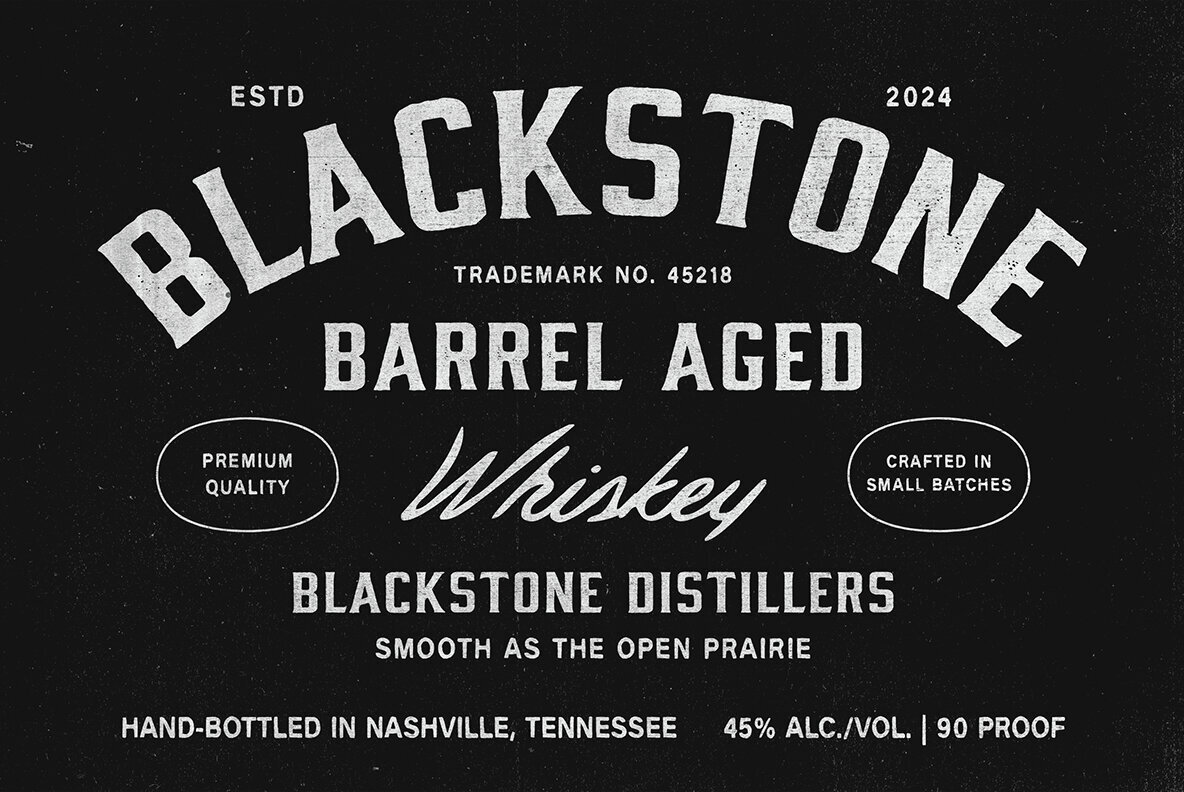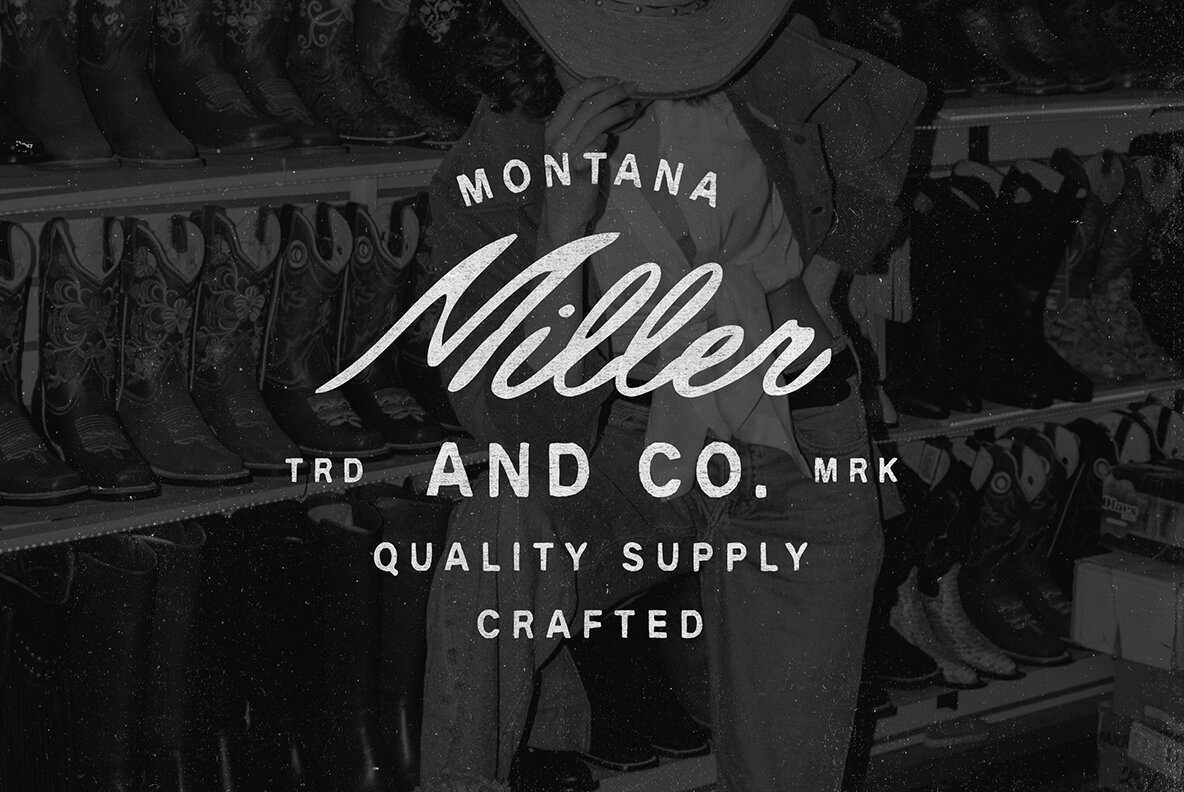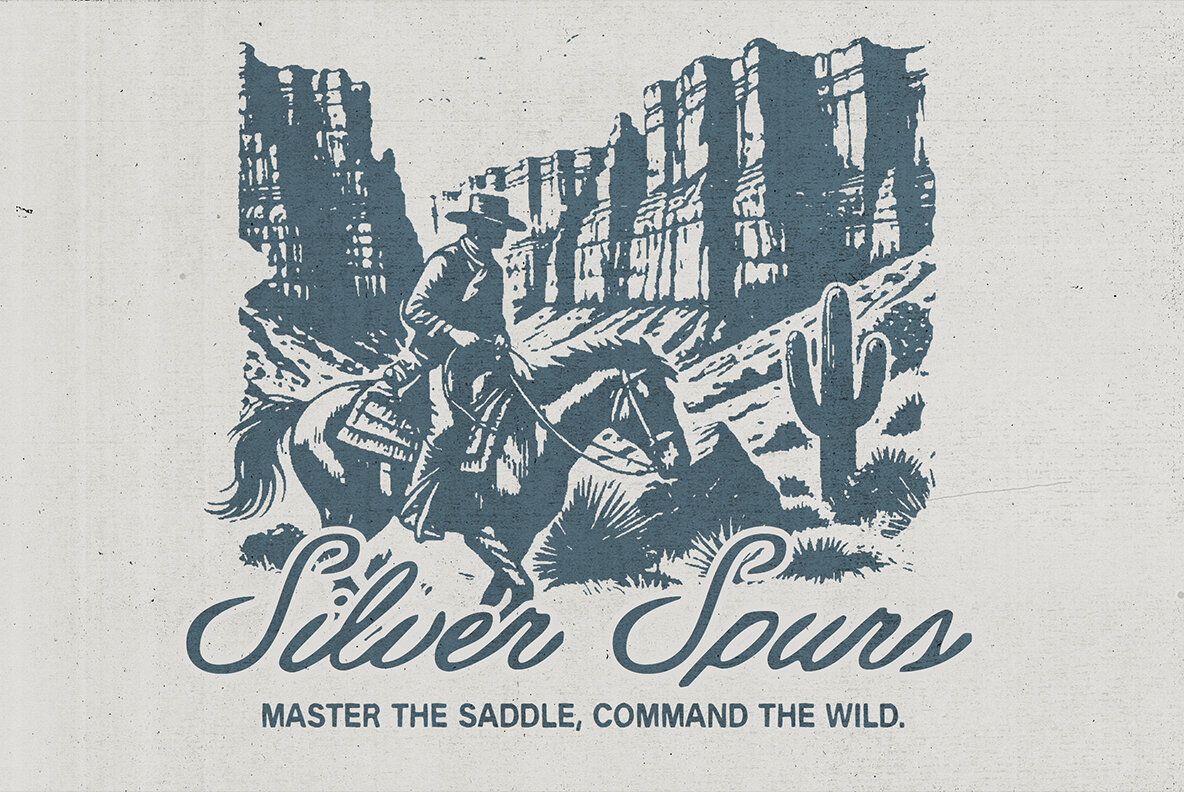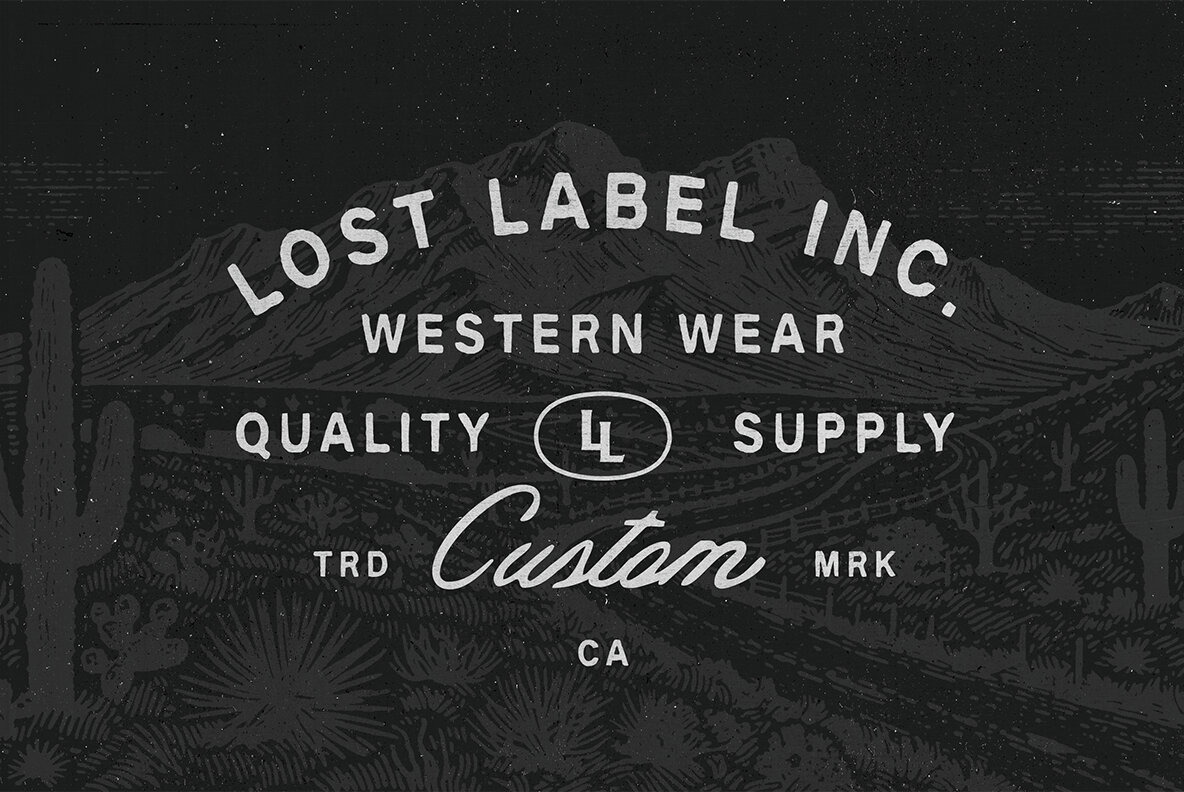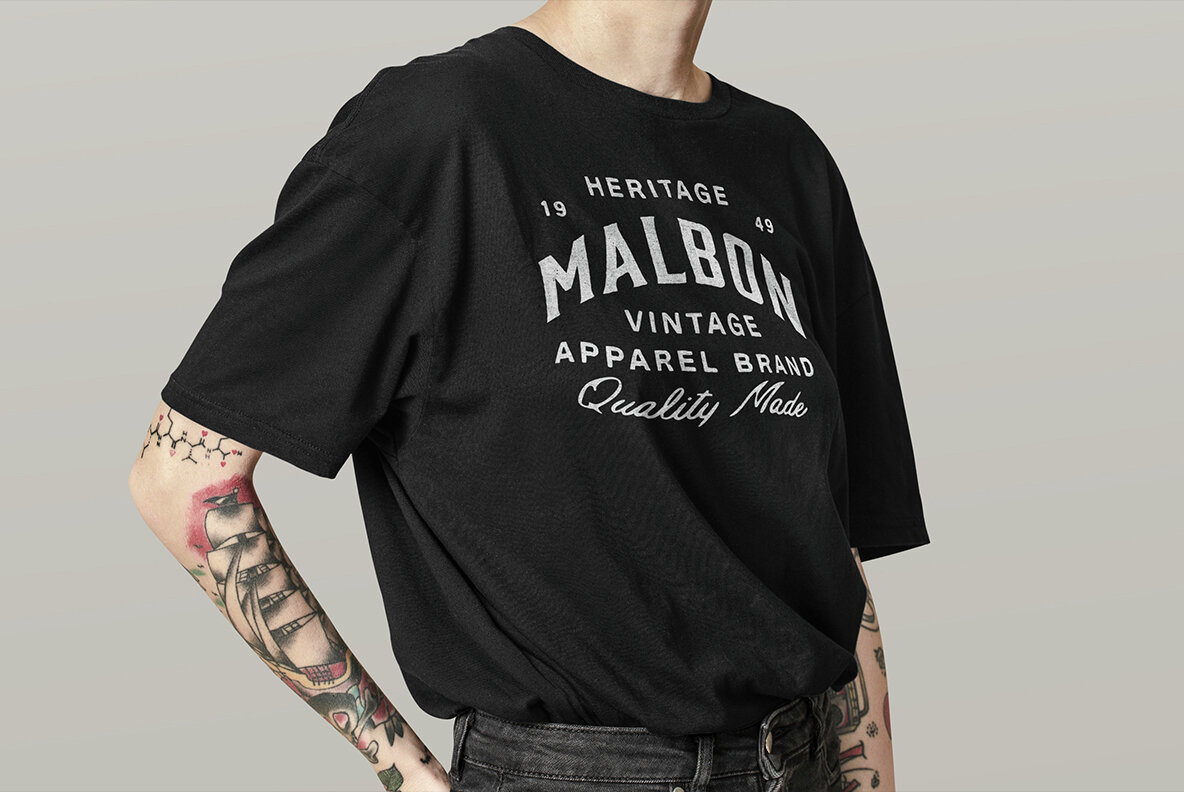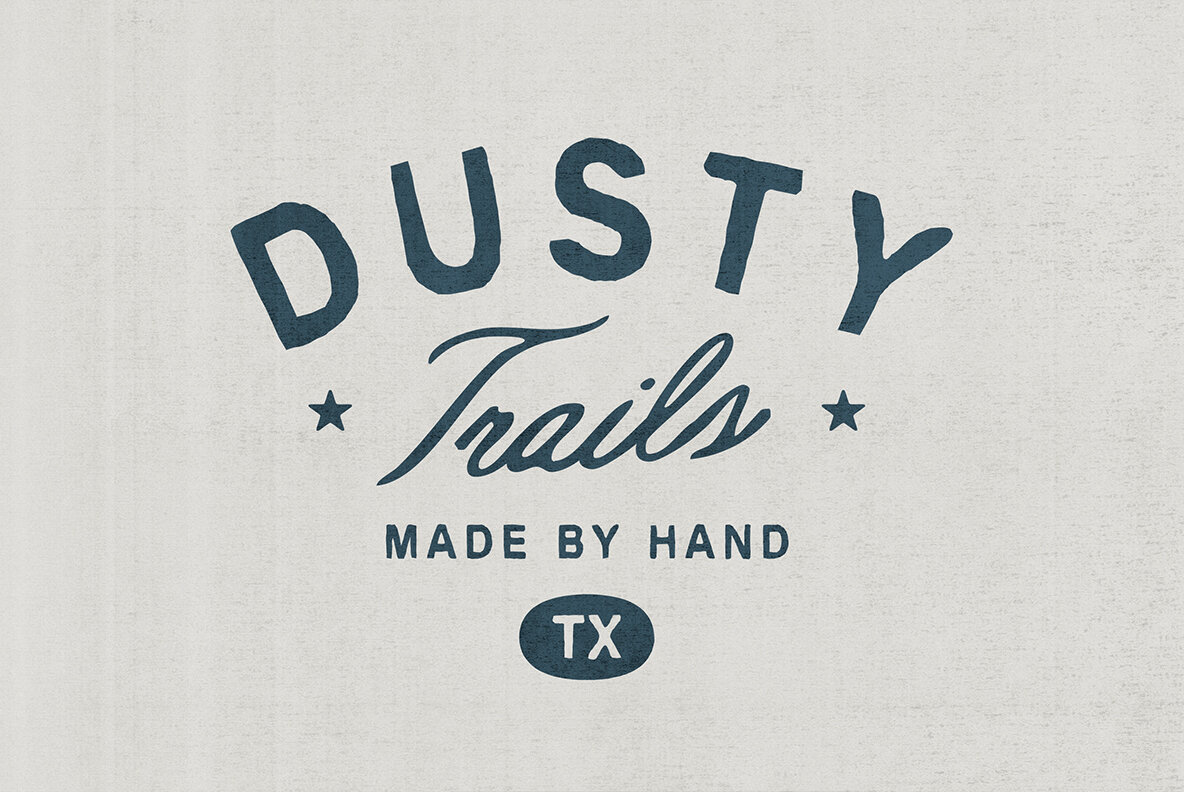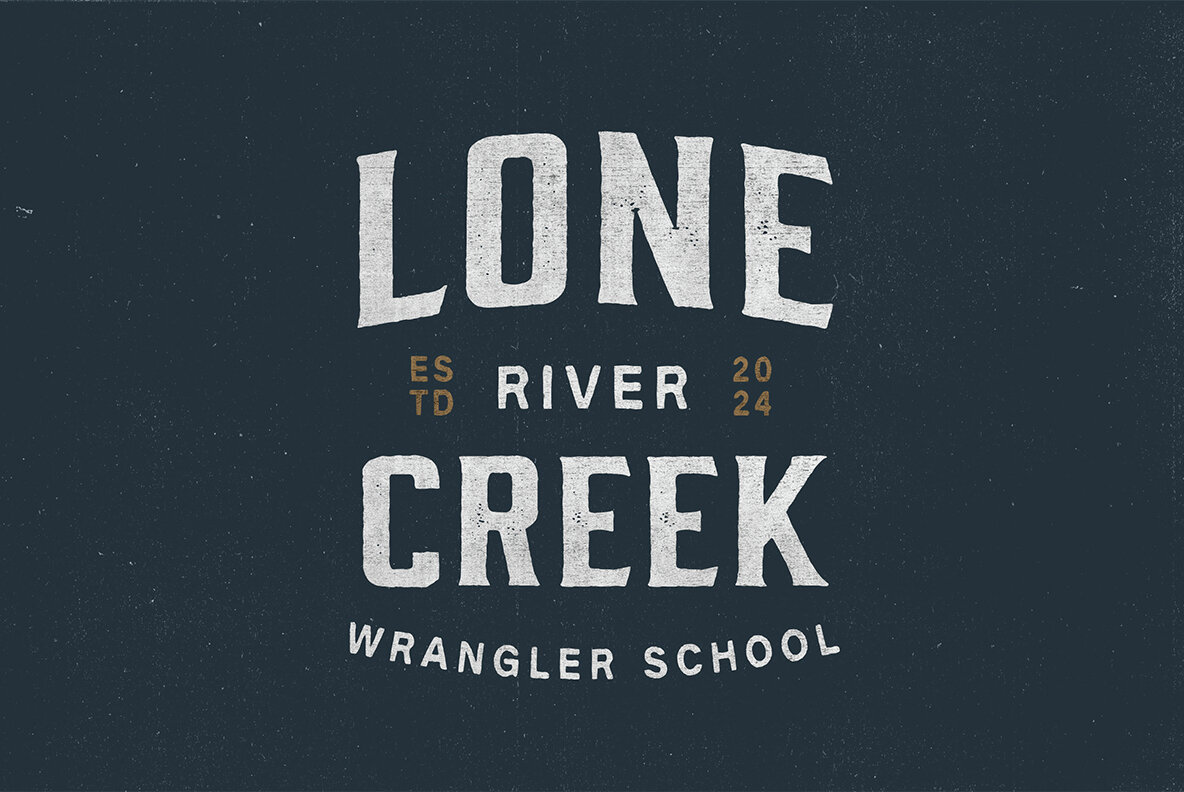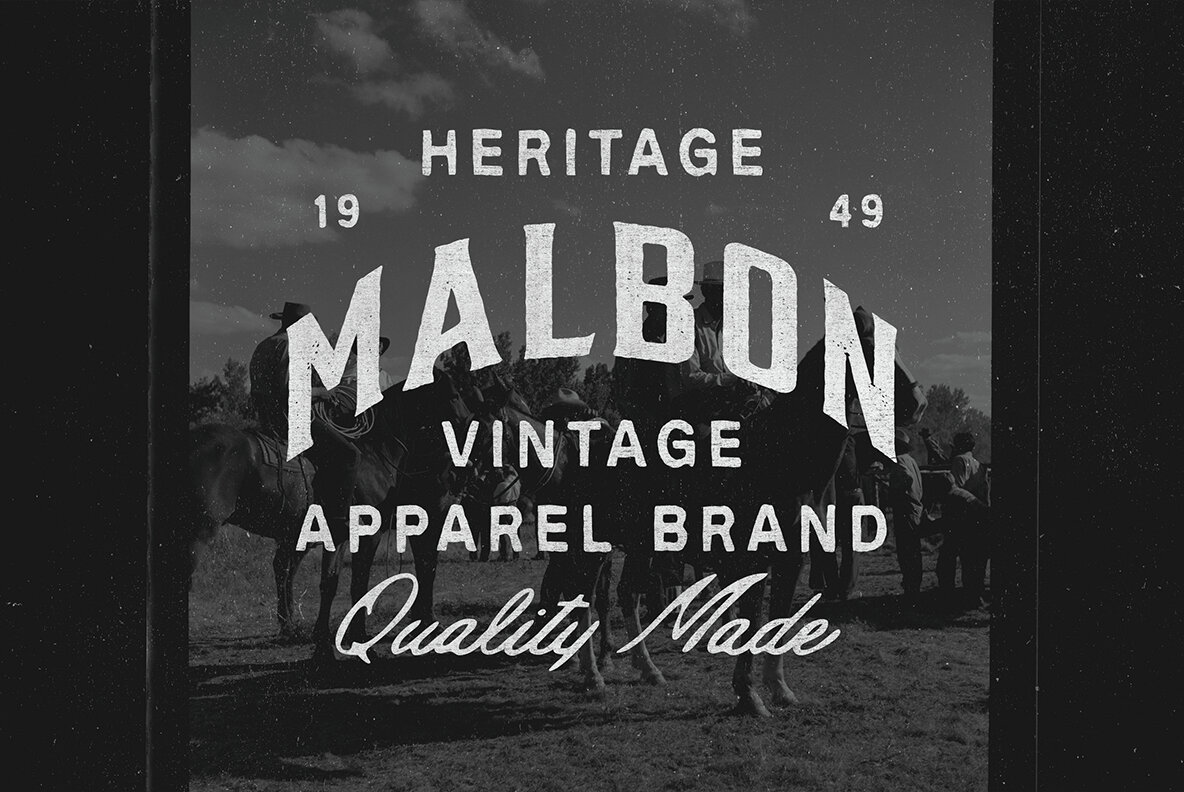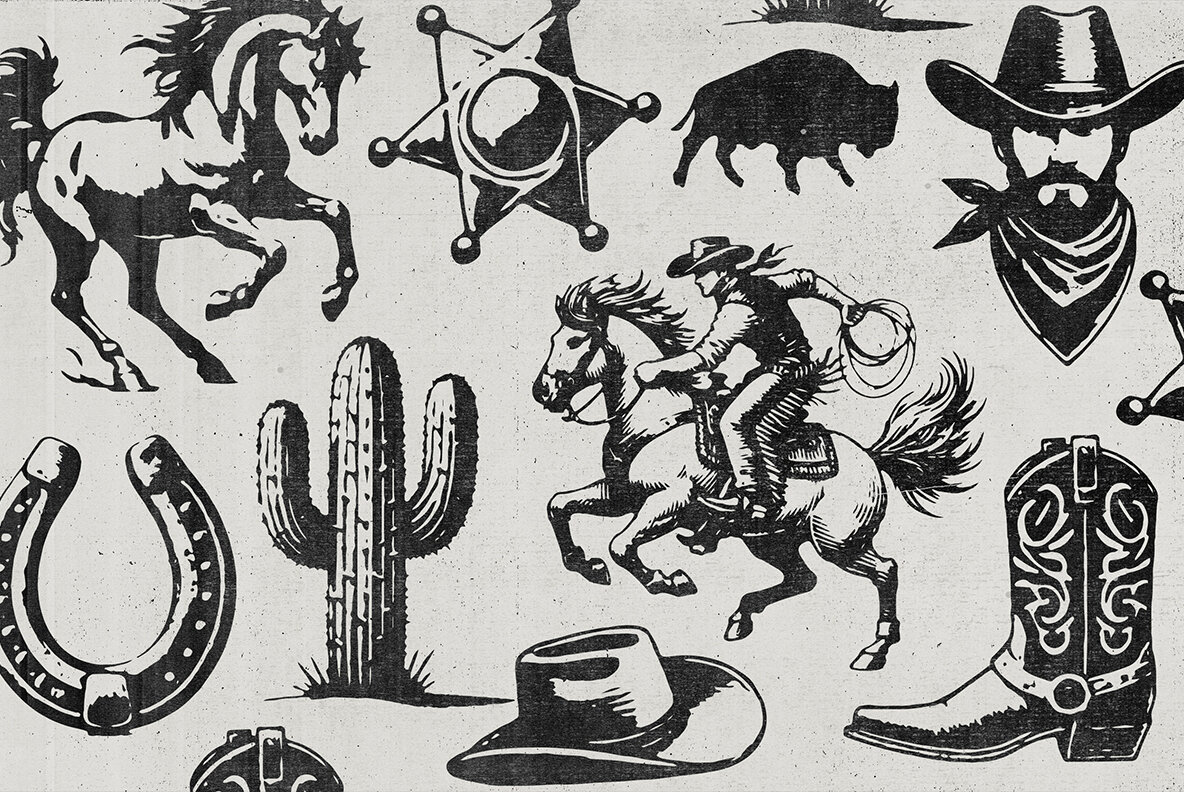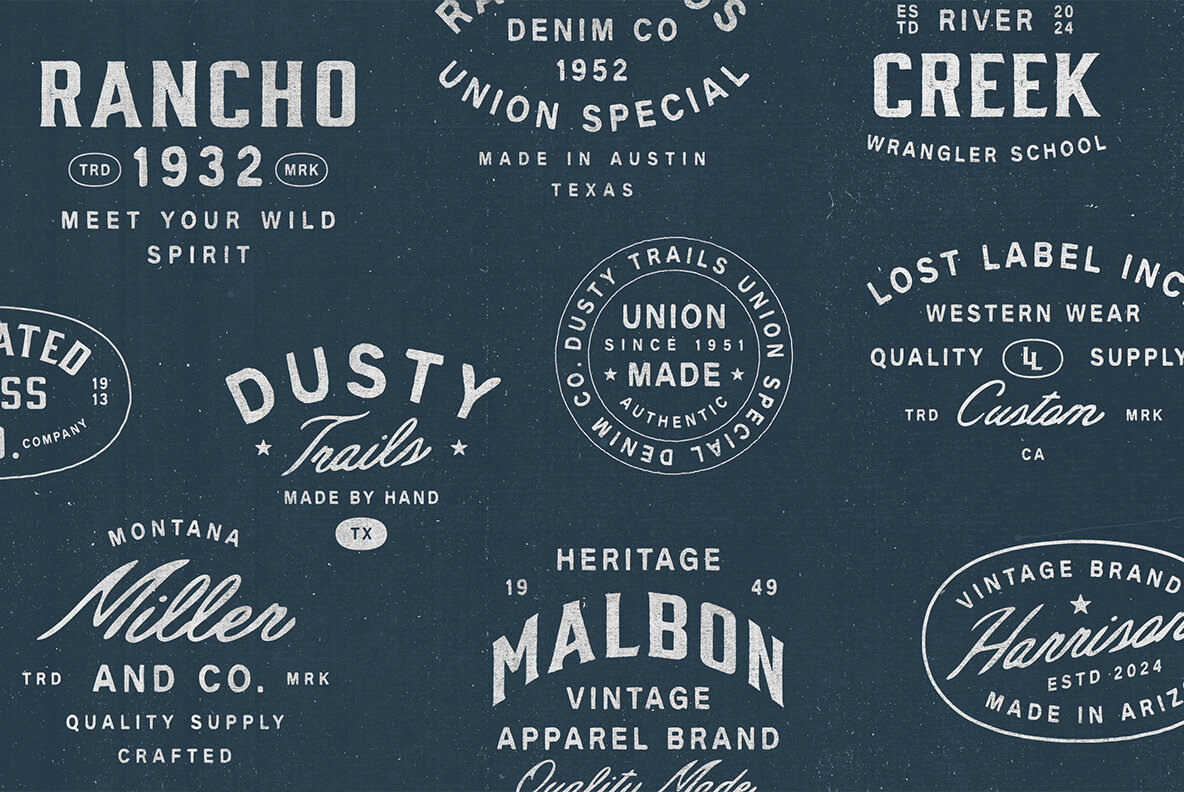
Wrangler Font
Get ready to saddle up with Wrangler, a bold and handcrafted font trio straight from the heart of the Southern West! Featuring three striking styles — Display, Script, and Condensed — this collection comes packed with extras: 10 hand-drawn illustrations and 12 logo templates to boost your projects! Here’s what’s included: Free Bonus Features: